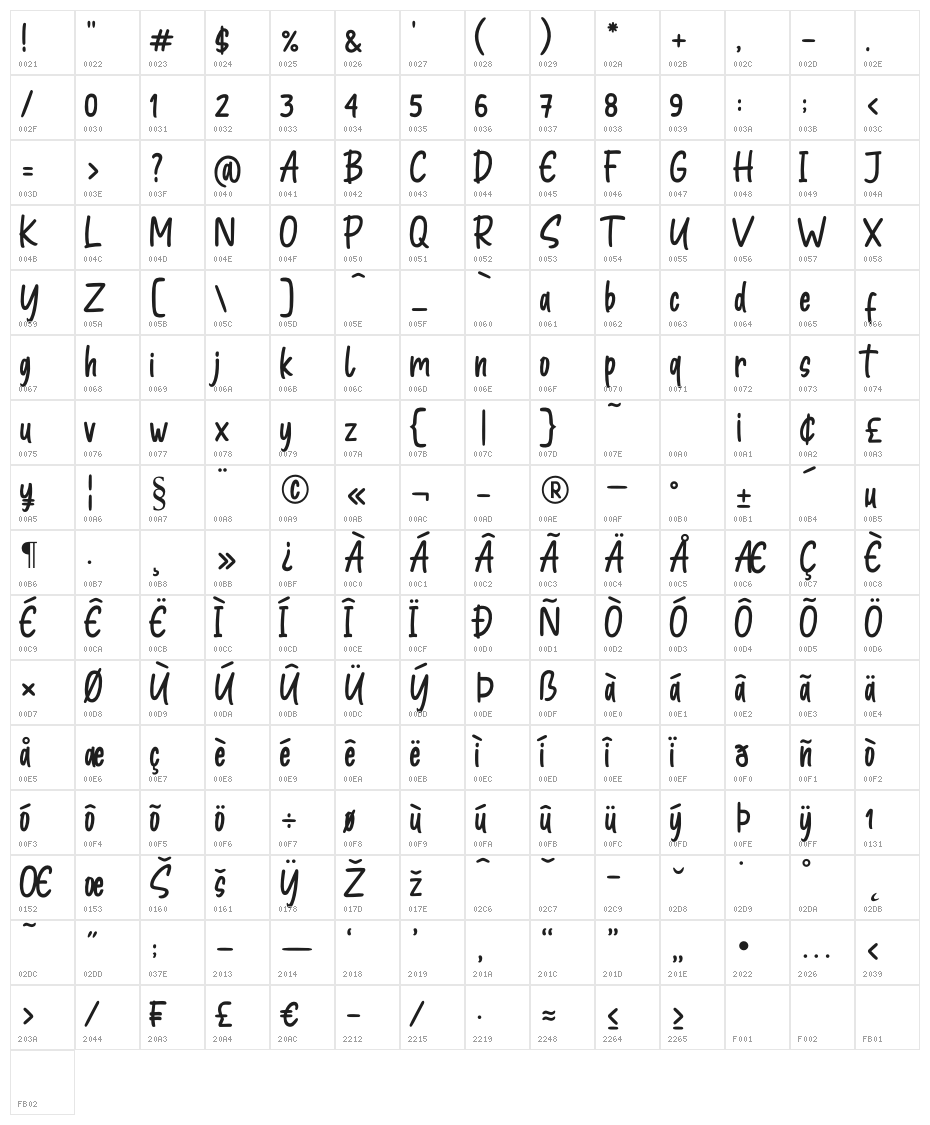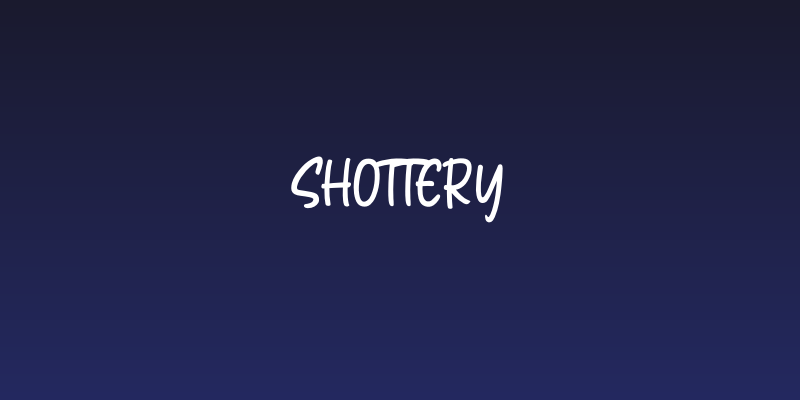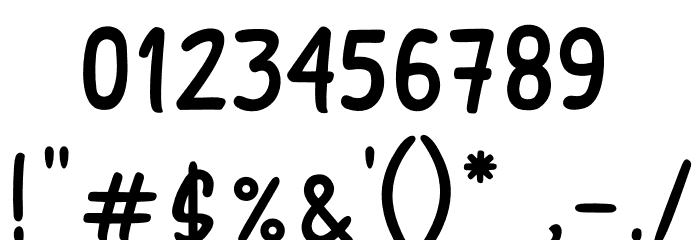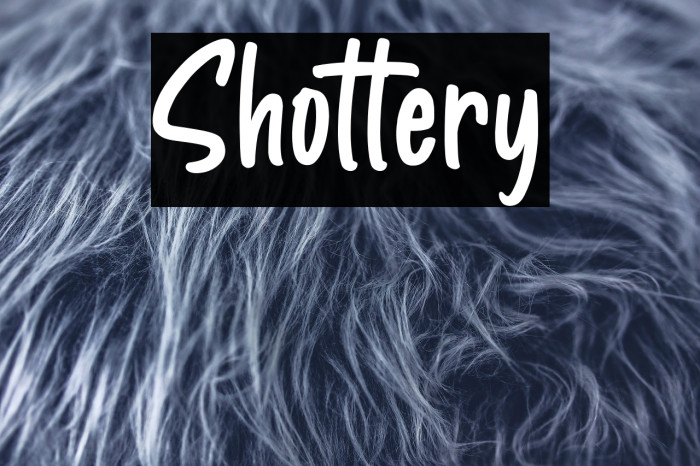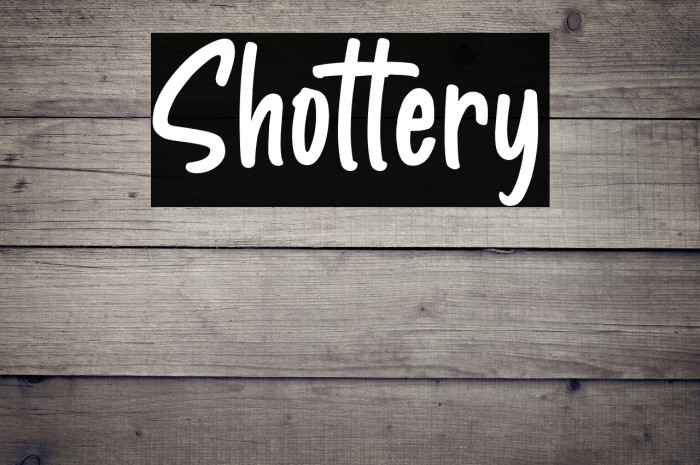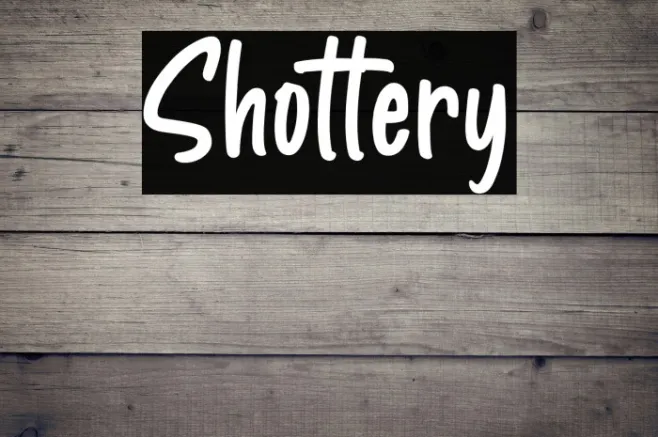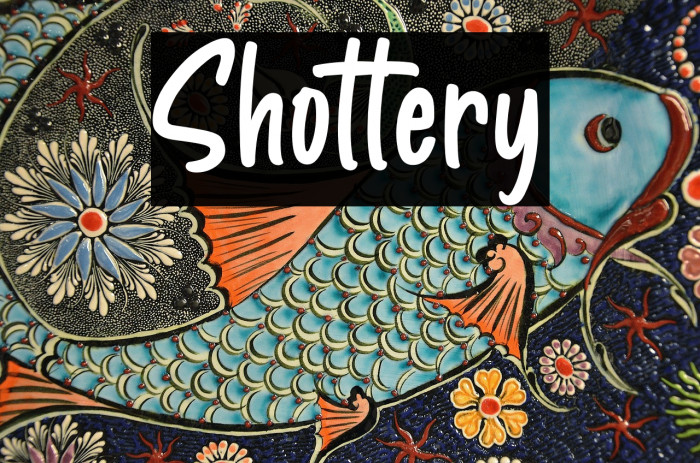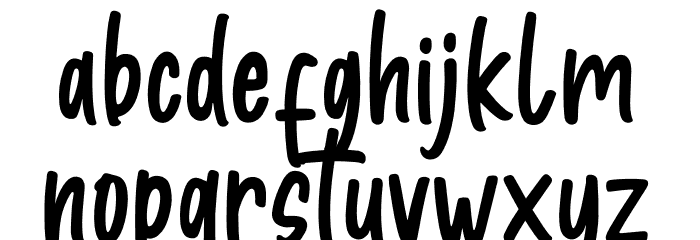
Shottery Font
Shottery Description
This font features a playful and casual handwritten style, characterized by its smooth, flowing lines and slightly irregular shapes. The uppercase letters are bold and prominent, while the lowercase letters maintain a consistent, friendly appearance. The numbers are clear and easy to read, matching the overall aesthetic of the font. Special characters are included, maintaining the same playful style. The font's informal and approachable nature makes it suitable for a variety of creative projects.